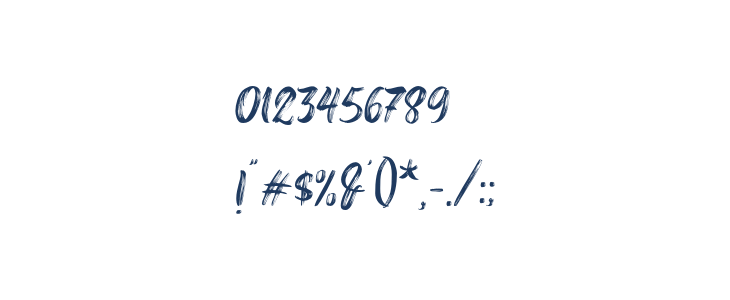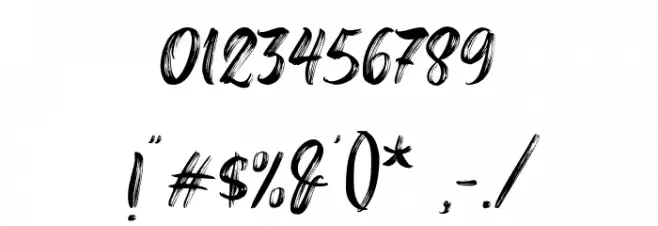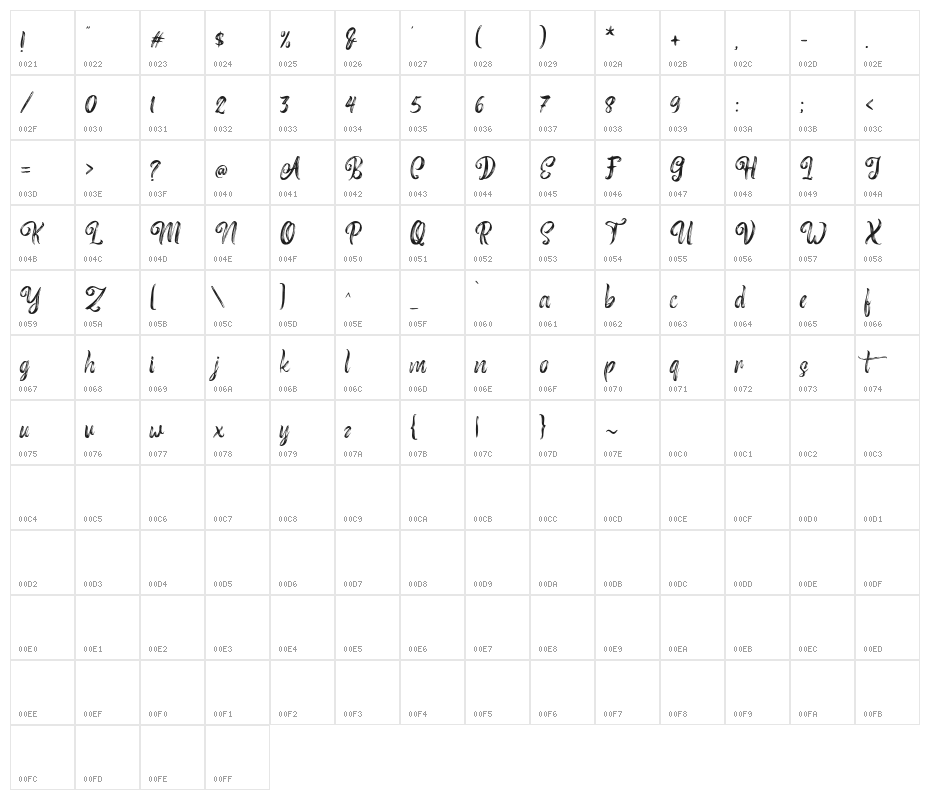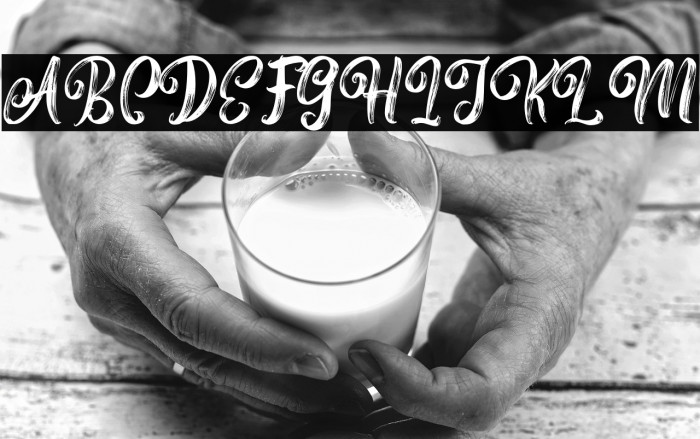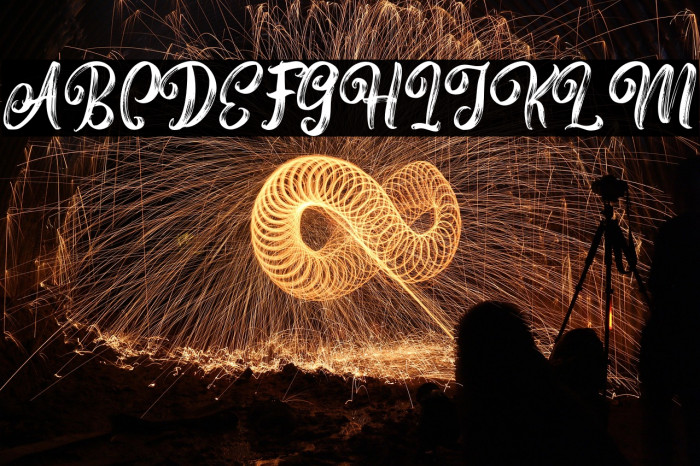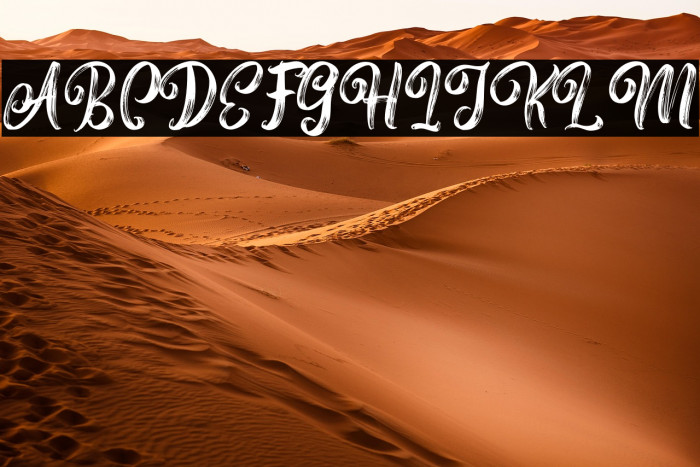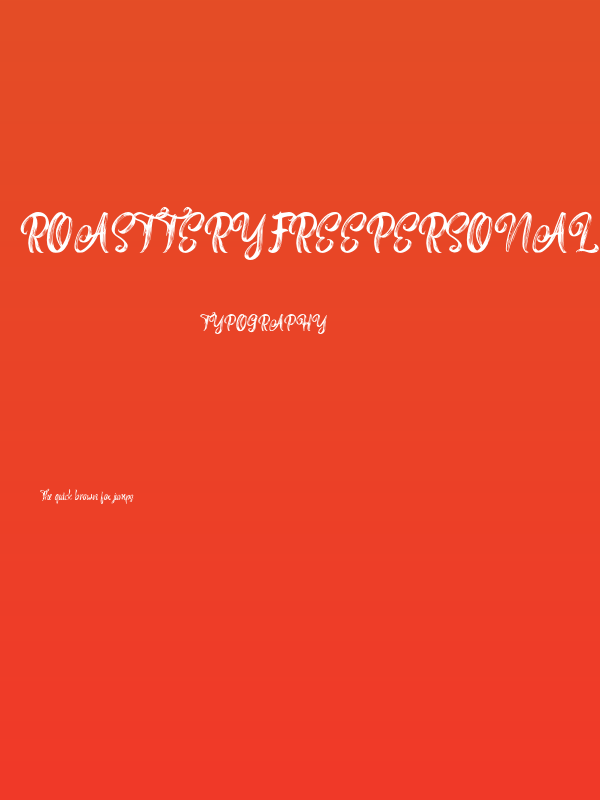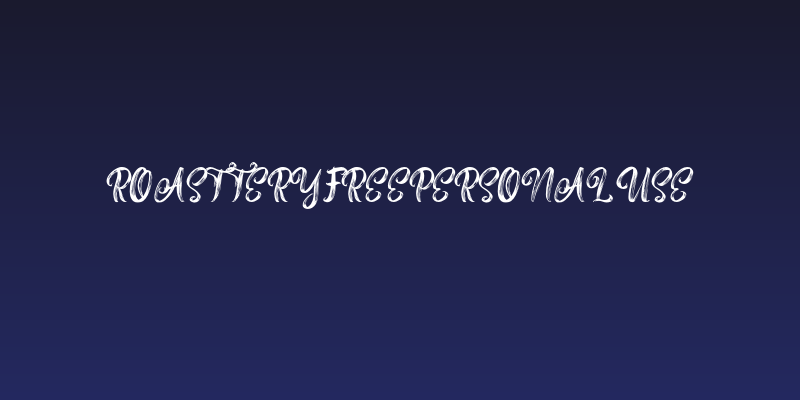
RoastteryFreePersonalUse Font
RoastteryFreePersonalUse Description
This font exhibits a dynamic and expressive style, characterized by its flowing, brush-like strokes that convey a sense of movement and energy. The uppercase letters are bold and sweeping, with a distinctive flair that adds a touch of elegance and drama. The lowercase letters maintain this fluidity, offering a harmonious balance between formality and artistic expression. Numbers and special characters are crafted with the same attention to detail, ensuring consistency throughout the typeface. The overall appearance is both modern and artistic, making it suitable for creative projects that require a touch of sophistication.